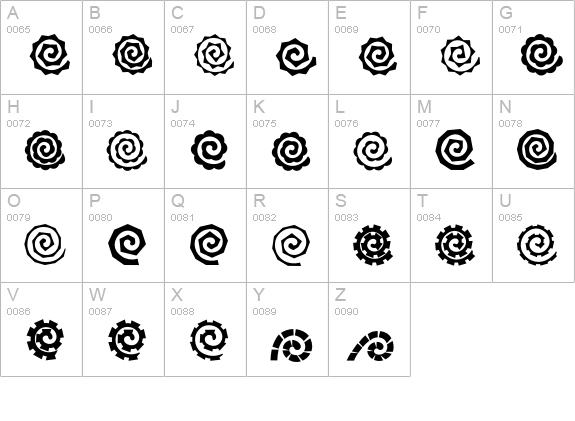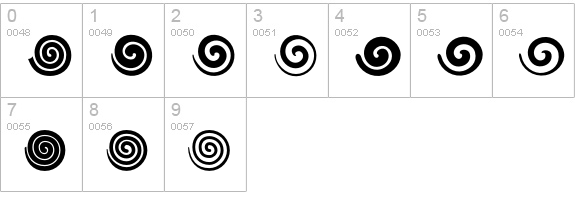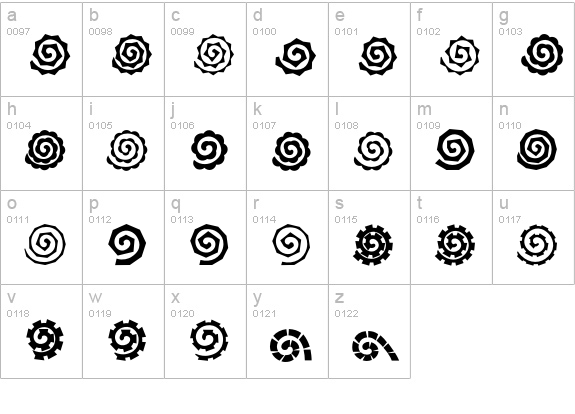
AltemusSpiralsBold Font Details
AltemusSpiralsBold is a captivating and bold font that is sure to make a statement in any design project. With its intricate spiral patterns and strong, rounded edges, this font exudes a sense of creativity and modernity. Whether you are looking to add a unique touch to your branding, posters, or social media graphics, AltemusSpiralsBold is the perfect choice. The best part? AltemusSpiralsBold is available for free download at FontsMarket.com. This means you can easily access this eye-catching font and incorporate it into your designs without any cost. Don't miss out on the opportunity to enhance your projects with the striking AltemusSpiralsBold font - download it today and let your creativity soar!